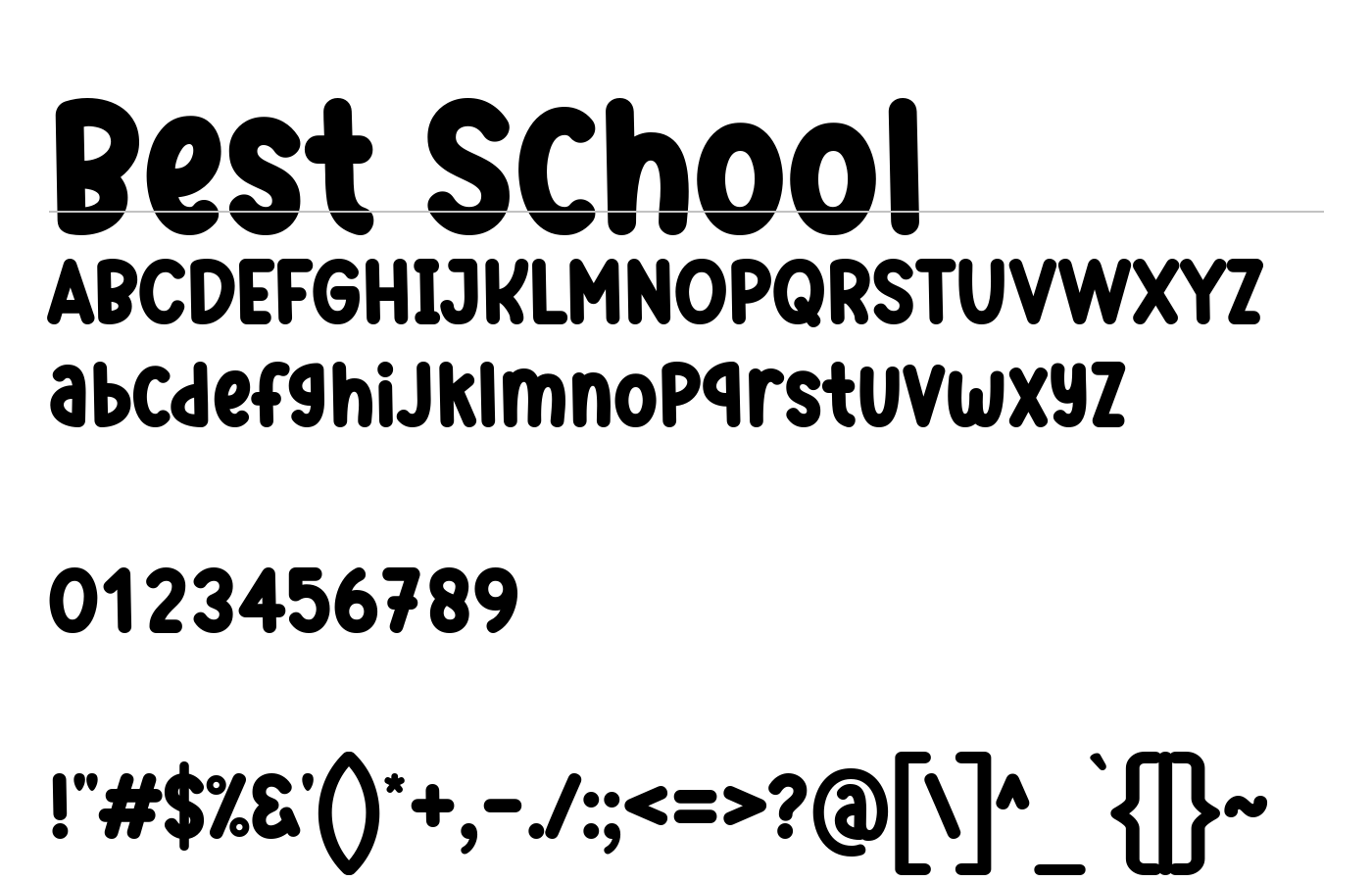
Best School Font is a playful, bold sans serif typeface with rounded edges and a casual, hand-drawn feel. Its friendly, chunky letterforms and high legibility make it ideal for children's materials, educational branding, and informal designs that want to convey warmth and approachability. This font works best in headlines, posters, and packaging where a fun and inviting tone is desired.
Best School Font
About Best School Font
| Font family | Best School Font |
| Designer | Kelik; Situjuh Nazara |